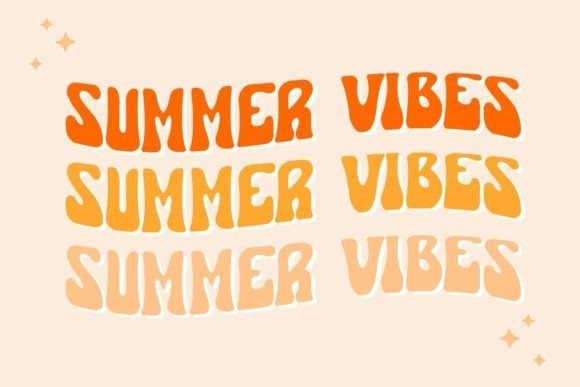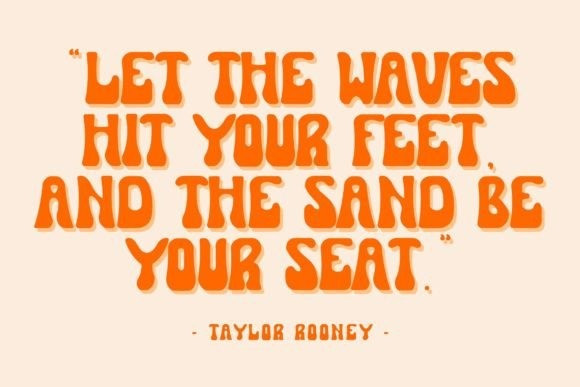
Fabulous Party Font
Fabulous Party – Groovy Retro Font is a font with distinctive handwritten characters perfect for branding projects, logos, wedding designs, media posts, advertisements, product packaging, product designs, labels, photography, watermarks, invitations, stationery, and any project who need handwritten dishes.